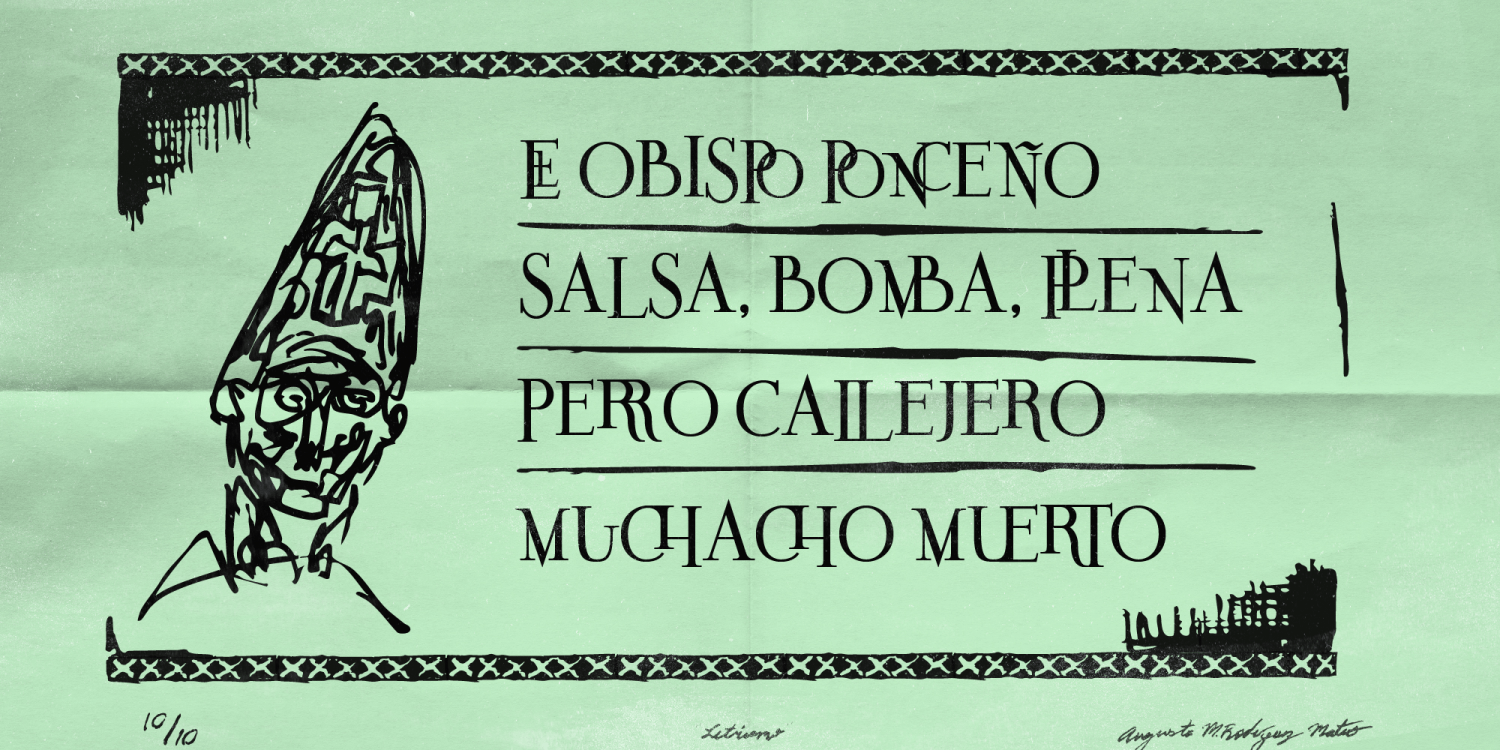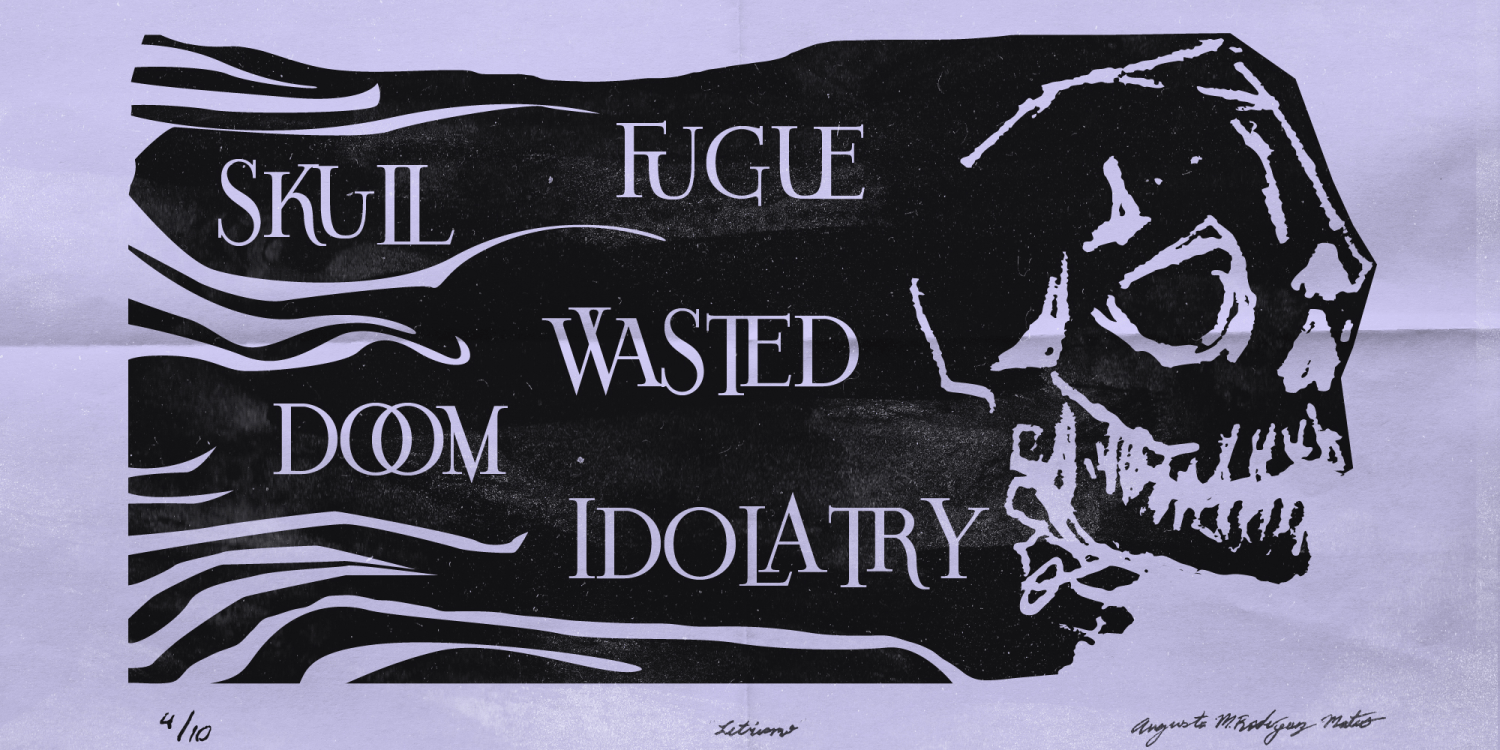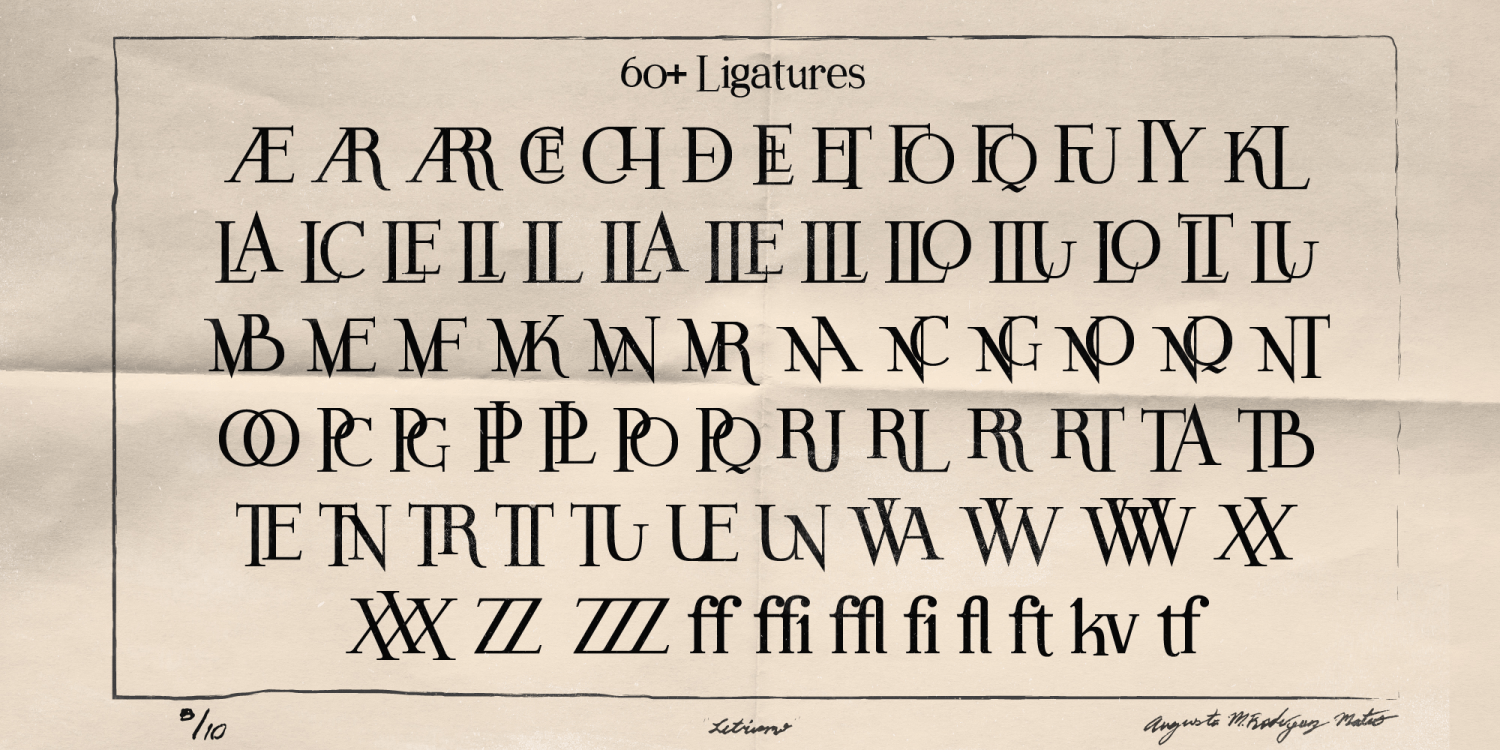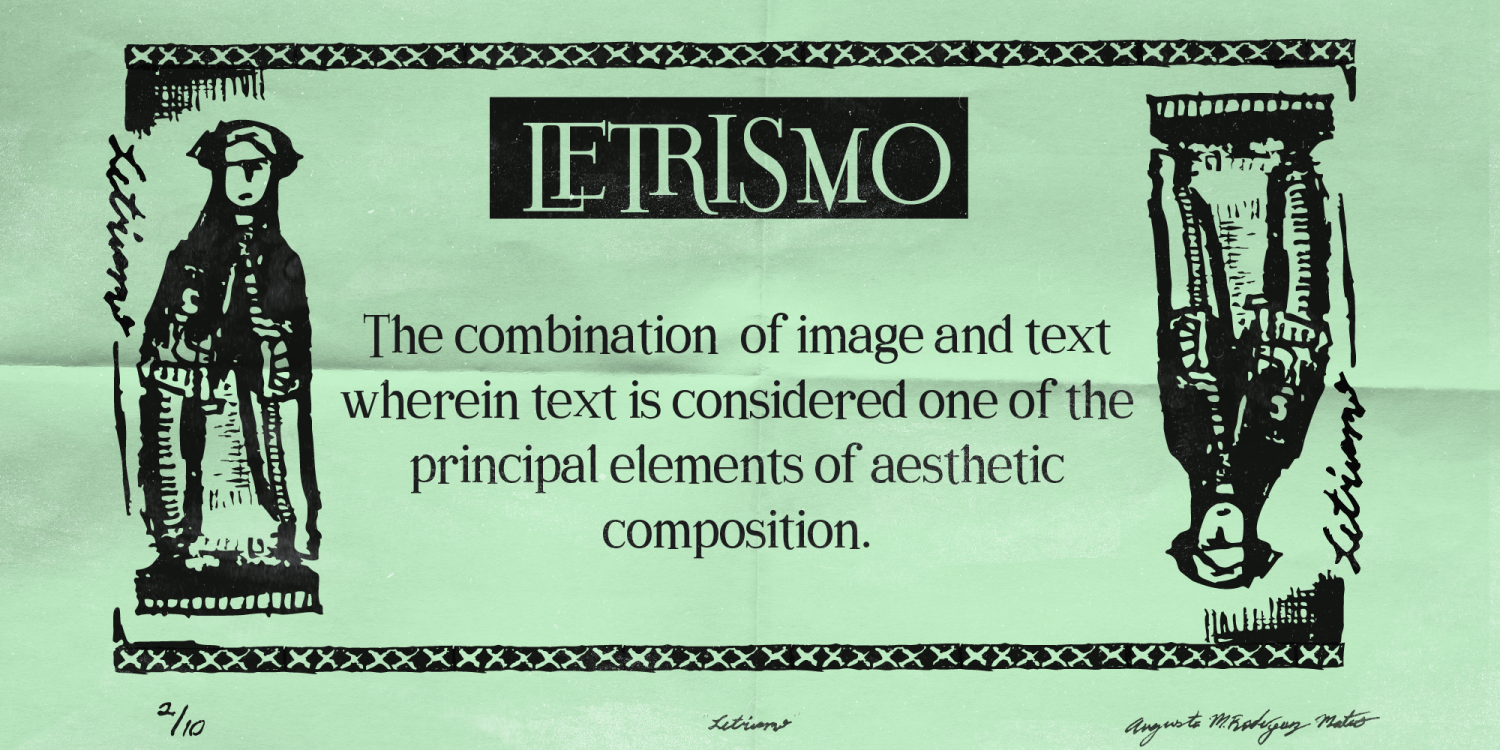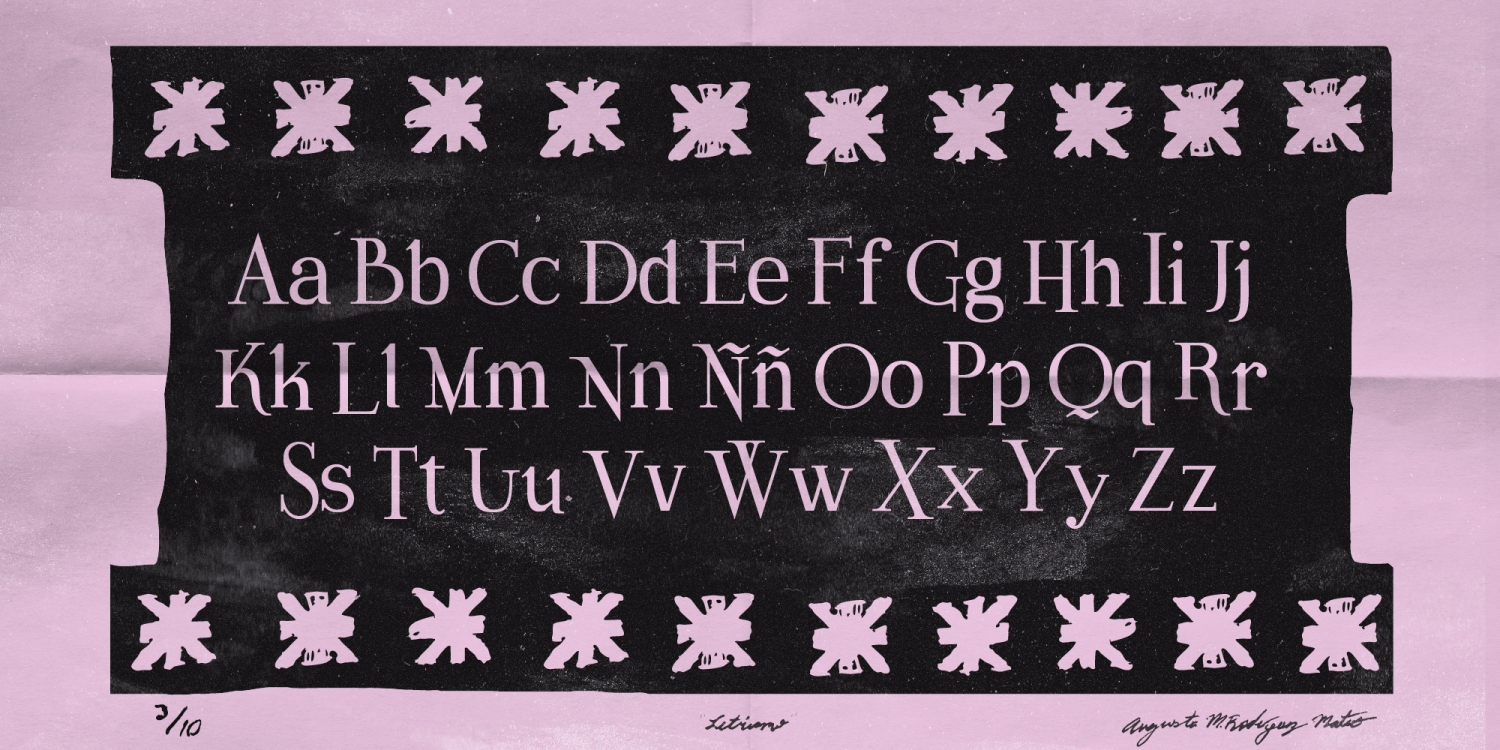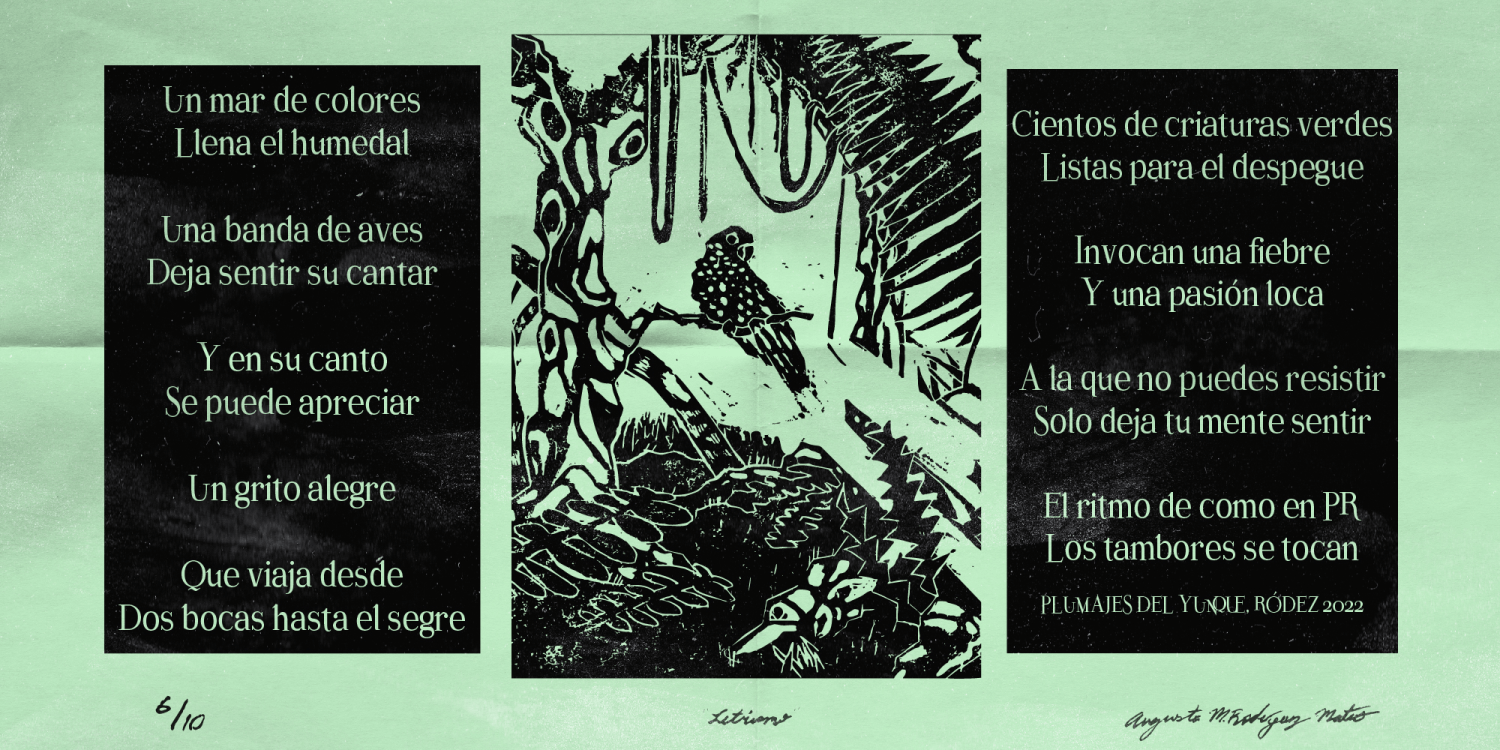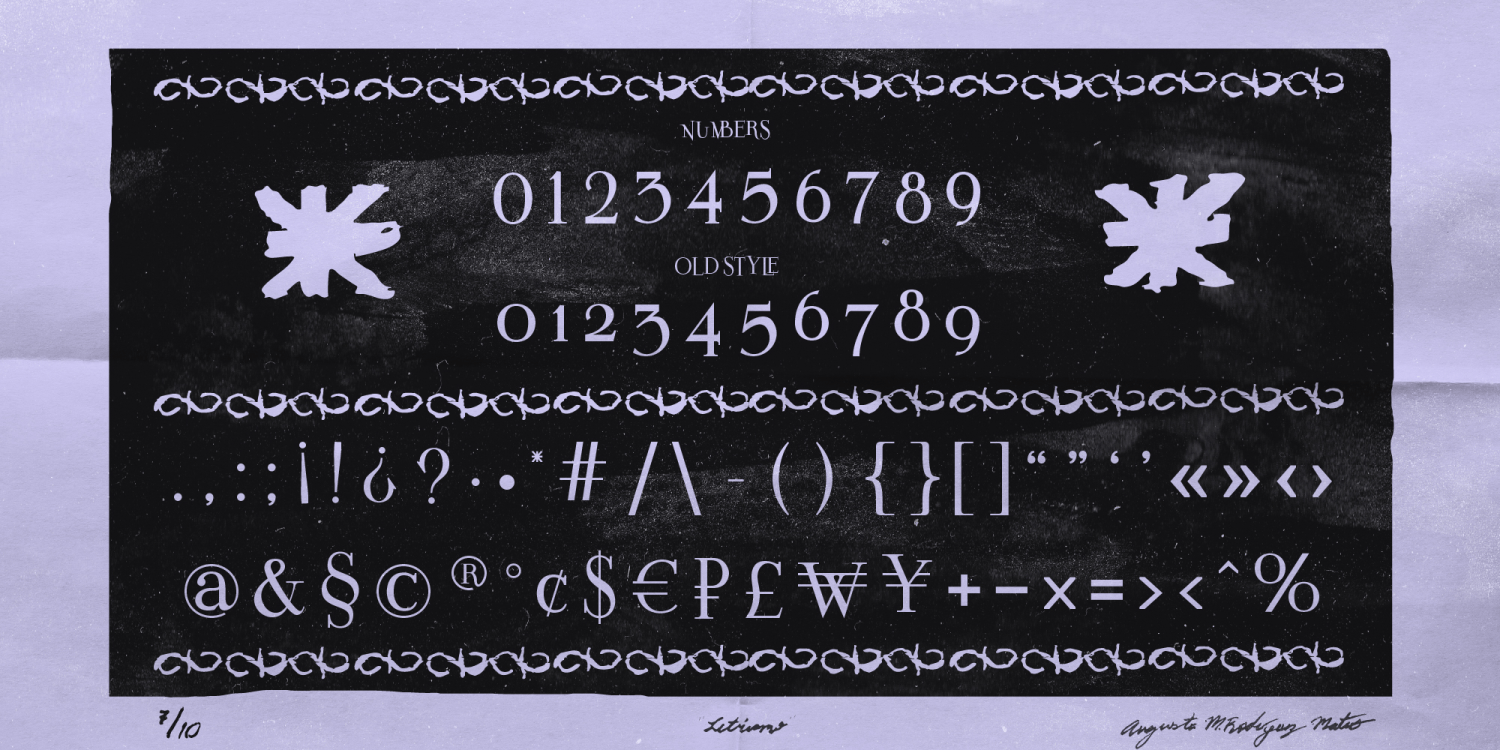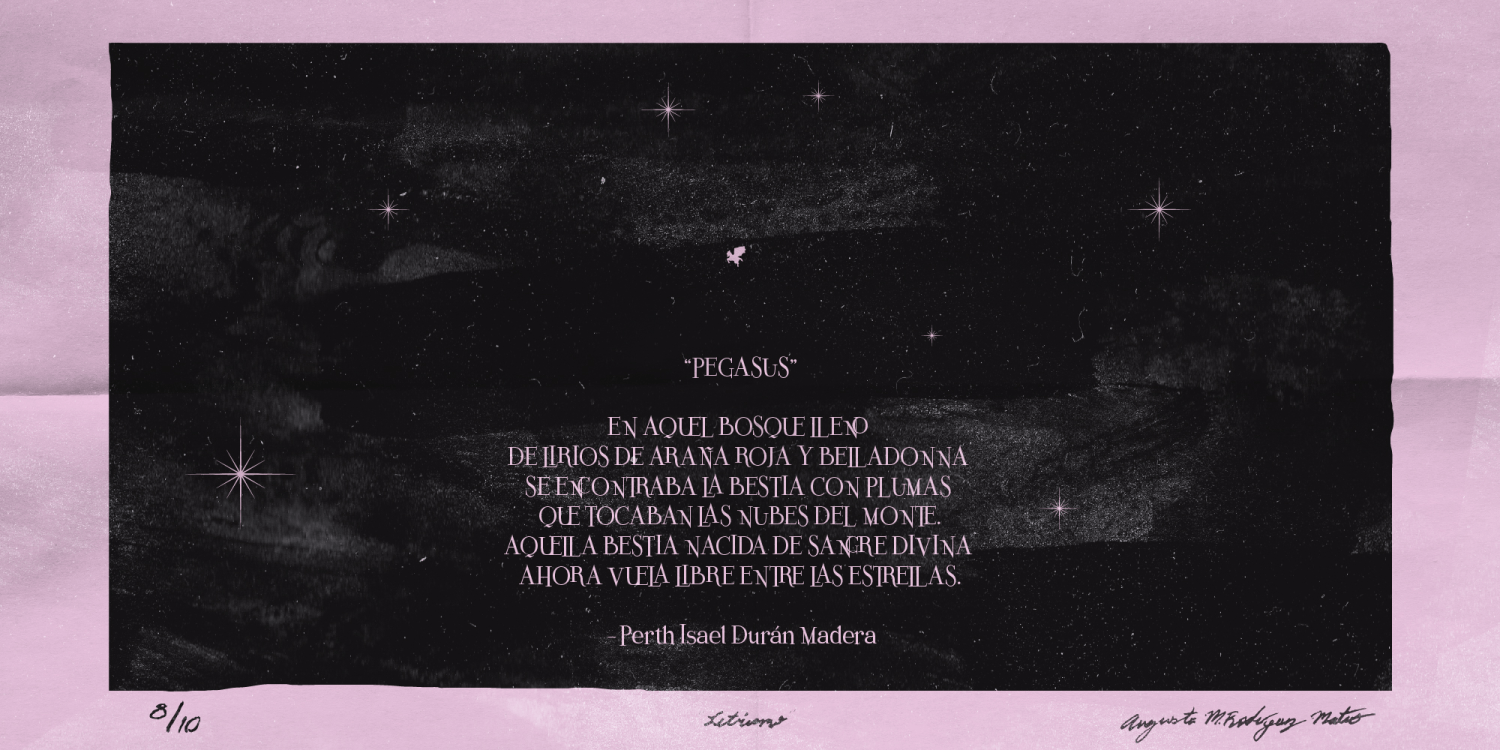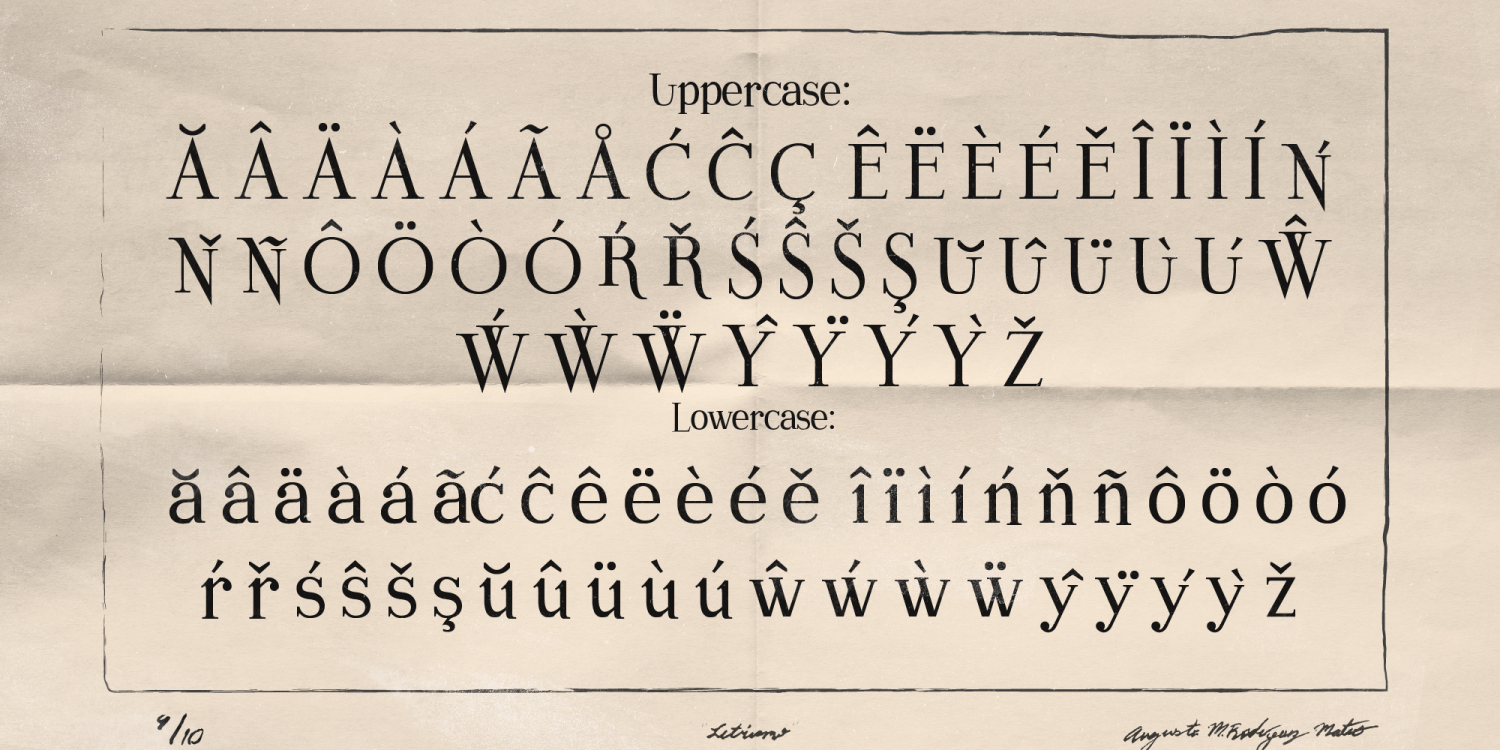
Letrismo
Font Family by Pedroglifos
Designed by Augusto Rodríguez Mateo
Letrismo is a serif display inspired by the sculptural letterforms the iconic Puerto Rican printmaker Lorenzo Homar once carved into wood, and inked into permanence. The typeface design captures the motion in Lorenzo’s typographic work with over 60 expressive ligatures that make Letrismo dance in deliberate, poetic irregularity. It’s a typeface for projects that require a human breath and artistic grace—ideal for headlines, posters, and expressive typographic compositions.